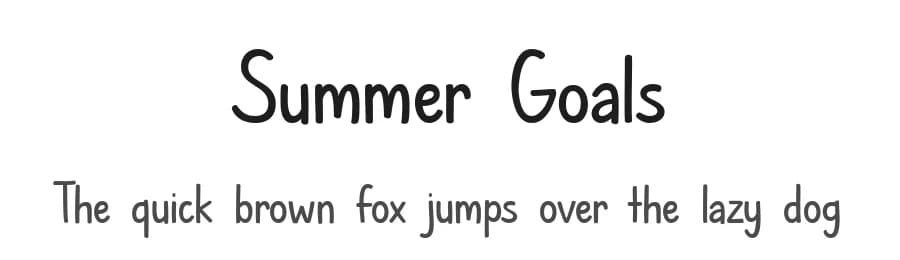
About Summer Goals Font
Introducing Summer Goals, a charming and simple handwritten font that captures the essence of sunny days and carefree moments. Perfect for adding a personal touch to your projects, this versatile typeface is ideal for invitations, social media graphics, and more. Let your creativity shine!
Summer Goals Font is a script font that shines as a display or heading face. Pair it with a clean sans-serif or serif font for body text β the contrast creates a clear hierarchy while the two styles stay balanced and easy to read.